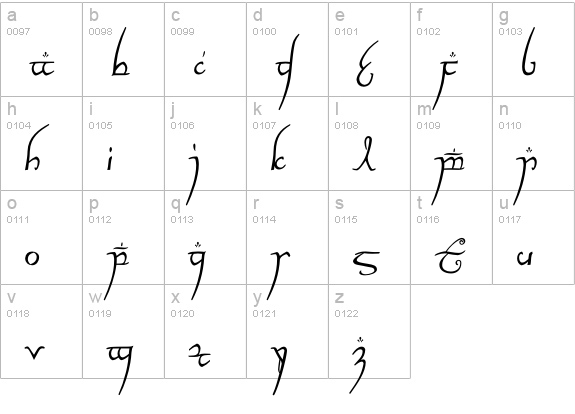
Introducing the exquisite Elvish Ring NFI font, a mesmerizing creation that brings the enchanting beauty of the Elvish world to your fingertips. This unique font embodies the intricate elegance and ethereal essence of Elvish script, making it a perfect choice for all your fantasy-inspired designs. Elvish Ring NFI font is a true testament to the meticulous craftsmanship and attention to detail that went into its creation. Every curve, every line, and every swirl of this font reflects the rich history and mystique of the Elvish culture. Its graceful strokes and delicate flourishes create a sense of timeless allure, capturing the essence of Elvish magic in a single typeface. What sets Elvish Ring NFI font apart is not only its stunning aesthetics but also its versatility. Whether you are designing a book cover, crafting a logo, or creating a mystical poster, this font will effortlessly add an air of sophistication and otherworldly charm to your project. With its wide range of characters and glyphs, Elvish Ring NFI font allows you to fully immerse yourself in the Elvish language, giving your designs an authentic and captivating touch. The best part? Elvish Ring NFI font is freely available to download at FontsMarket.com. This means you can bring the enchantment of the Elvish world to your designs without any cost. Now, you have the opportunity to unleash your creativity and embark on a journey that will transport your audience to a realm of magic and wonder. So, if you are a fan of fantasy, a lover of Elvish lore, or simply desire to add a touch of elegance to your designs, Elvish Ring NFI font is the perfect choice for you. Download this captivating font from FontsMarket.com and let your imagination take flight as you explore the captivating world of the Elves.